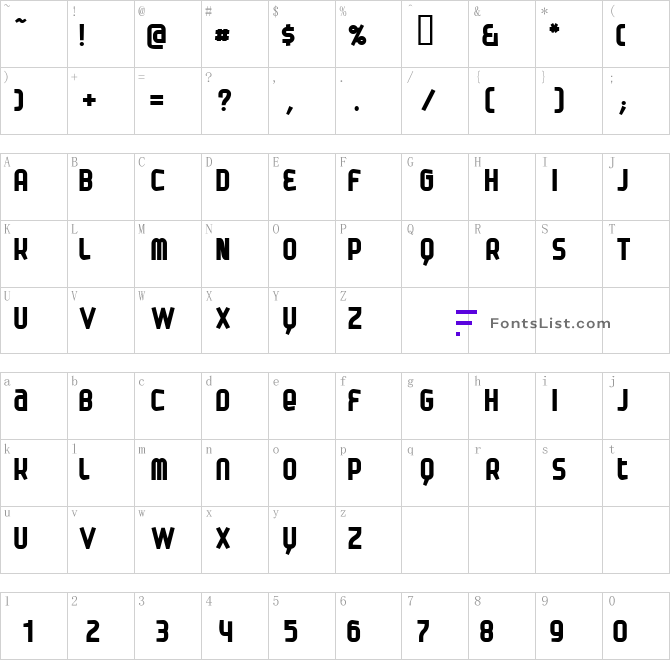
- Font Name:Danbold
Danbold.ttf is a very beautiful artistic font, Danbold.ttf is widely used in the design and printing of various books and pictures,Danbold.ttf has a strong visual impact,Danbold.ttf is a commonly used font in newspapers, magazines and books, and is used in posters, e-commerce Poster design, store design, logo design, font design and other fields.Danbold.